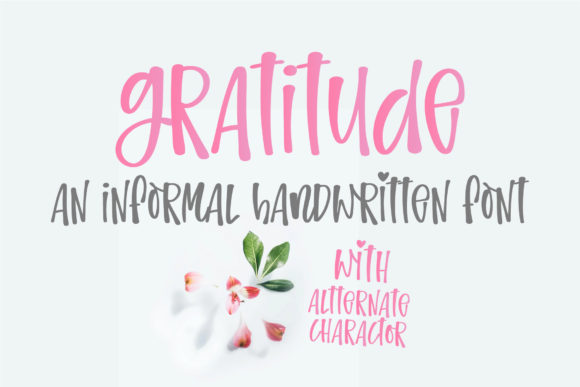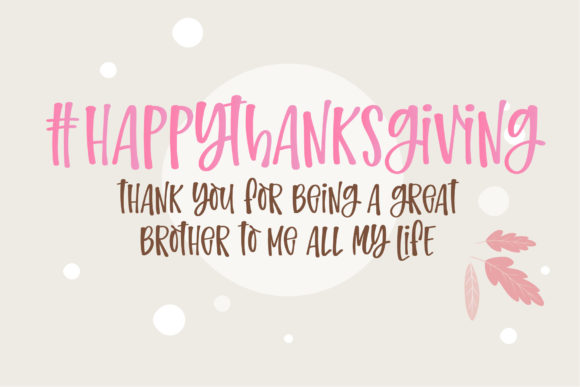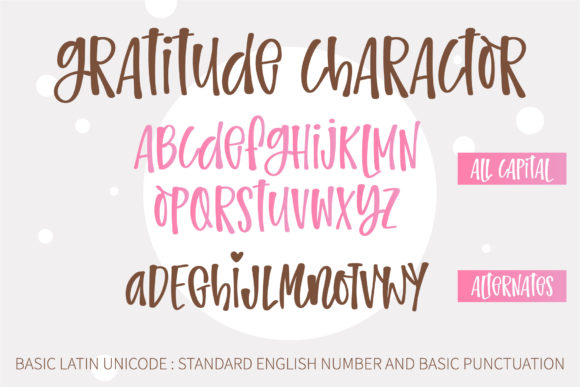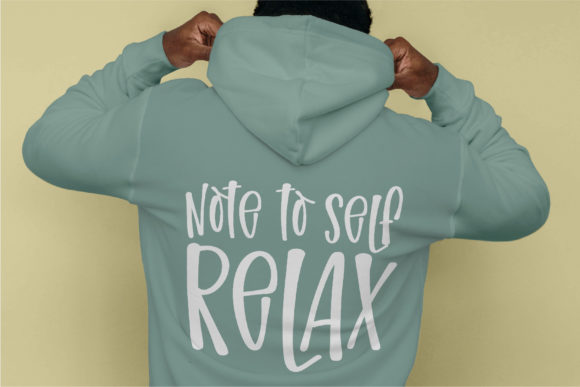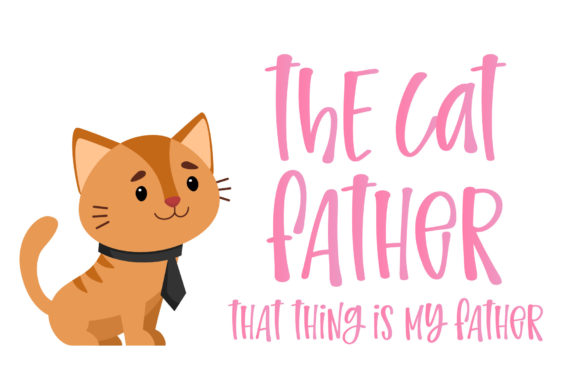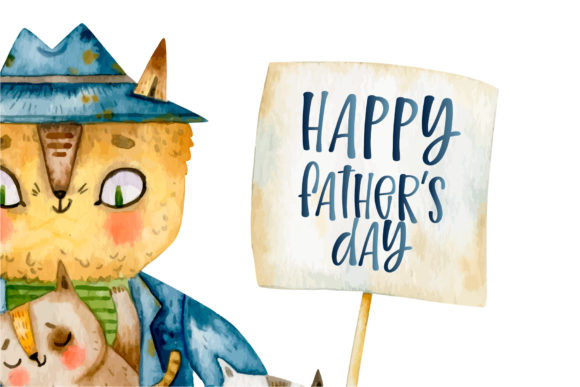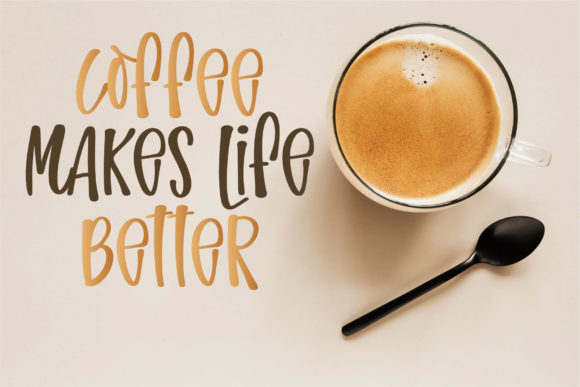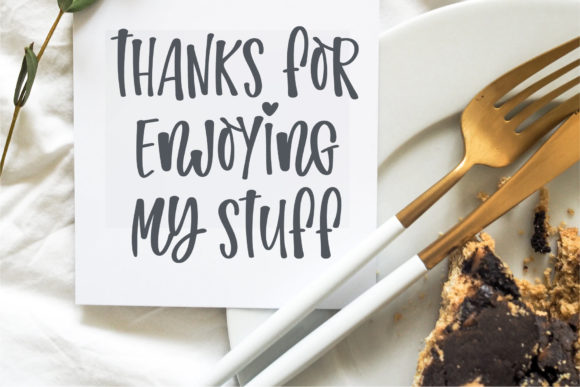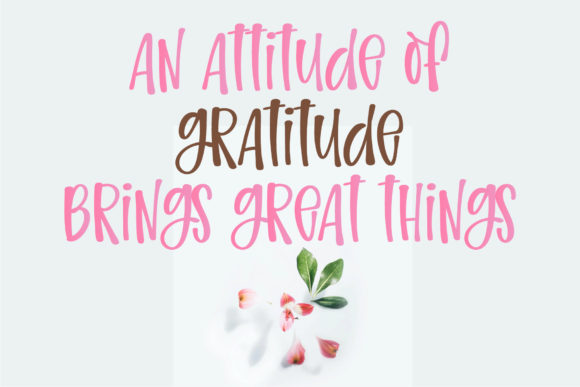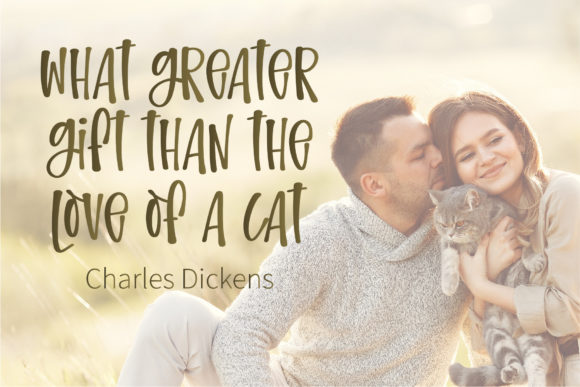
Gratitude Font
About Gratitude Font
Gratitude is a versatile and informal handwritten font that brings a cool and friendly vibe to your designs. With its authentic and natural look, it is perfect for a wide range of projects, particularly those that require a personal and down-to-earth touch.
The informal and handwritten style of Gratitude adds a sense of warmth and approachability to your typography. It gives the impression that the text has been handcrafted, creating a personal and relatable connection with the audience. This makes it an excellent choice for chalkboard quotes, teaching materials, and any design that aims to convey a casual and friendly atmosphere.
One of the key strengths of Gratitude is its ability to capture the authenticity and imperfections of natural handwriting. The irregularities and variations in letterforms give the font a realistic and organic feel, as if it were written by hand. This adds character and personality to your designs, making them stand out and feel more genuine.
Gratitude’s versatility allows it to be used in a variety of contexts. It can be applied to educational materials, such as worksheets, handouts, and presentations, to create a relatable and engaging learning experience. Additionally, it can be used for social media graphics, blog post headers, and other digital content, bringing a personal and approachable touch to your online presence.
Overall, Gratitude is a cool, friendly, and informal handwritten font that adds an authentic and personal feel to your designs. Its versatility makes it suitable for a range of applications, particularly those related to teaching and conveying a relatable message. Embrace the natural and realistic look of Gratitude to create designs that resonate with your audience and evoke a sense of gratitude and connection.